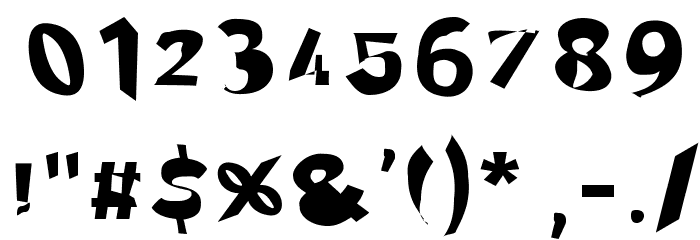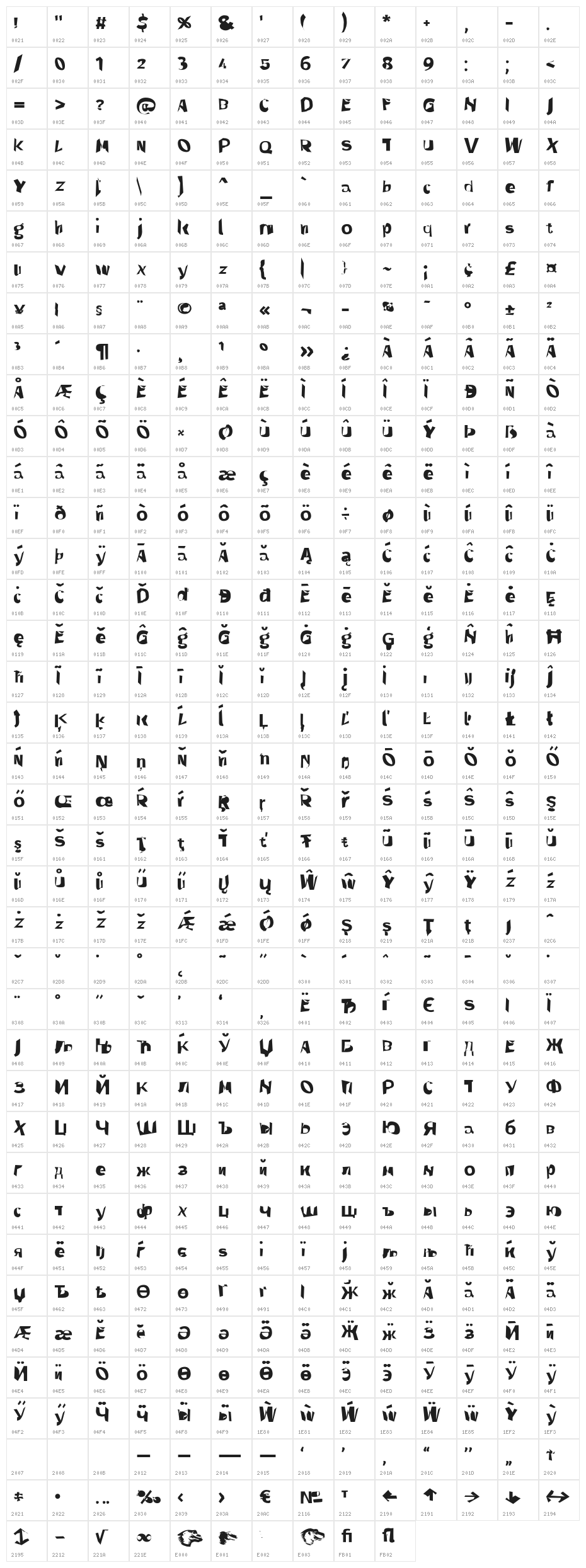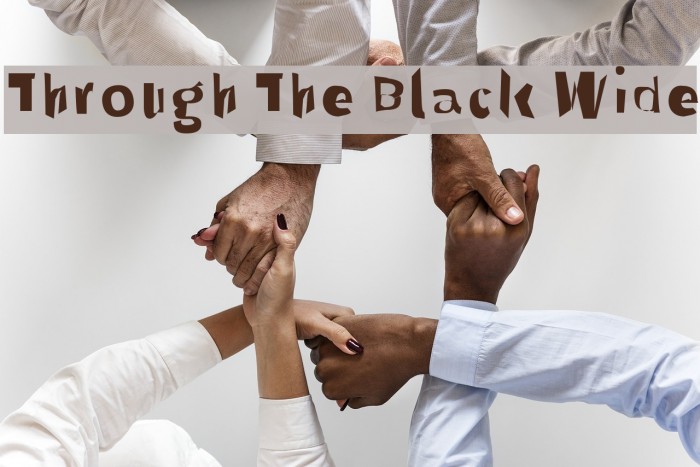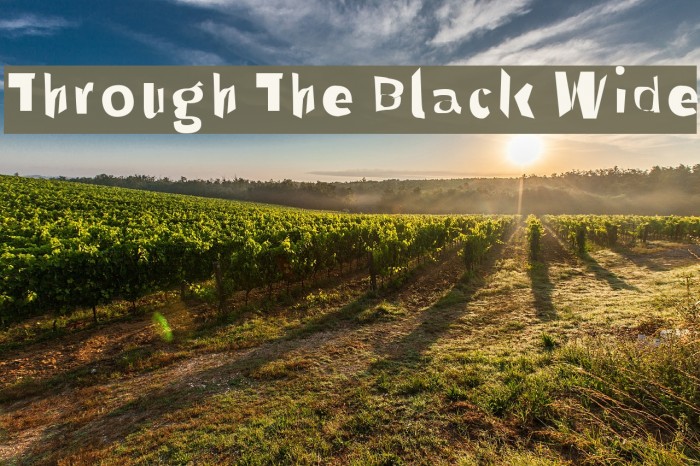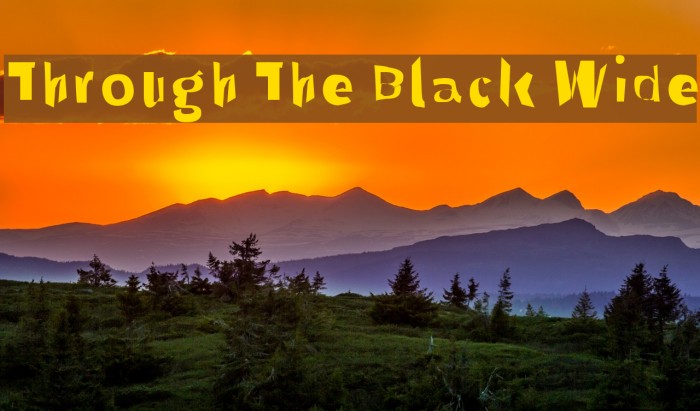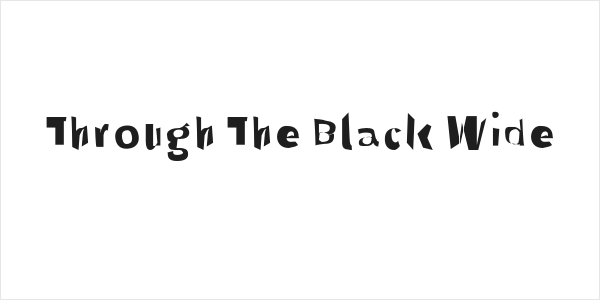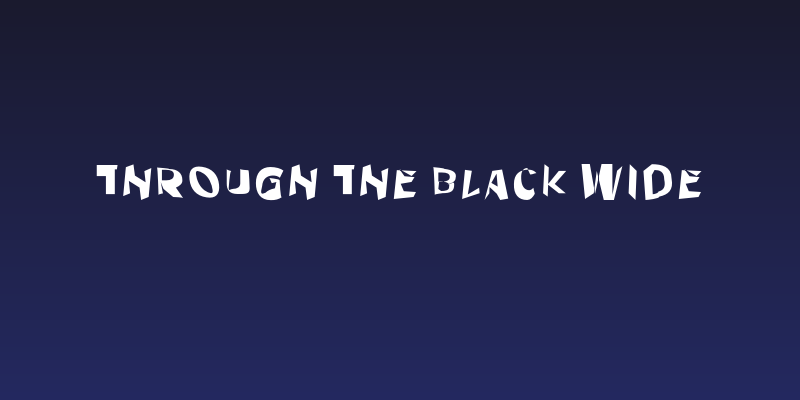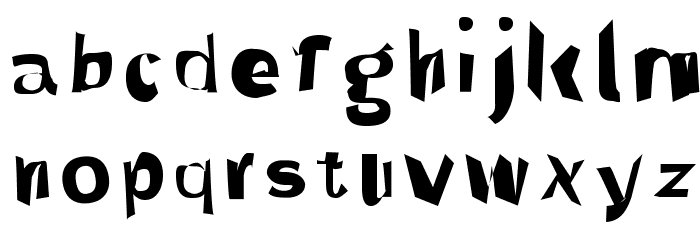
Through The Black Wide Font
Through The Black Wide Description
This font exhibits a bold and dynamic style with a distinctively irregular and jagged appearance. The characters are crafted with varying angles and thicknesses, creating a sense of movement and energy. The uppercase letters are particularly striking, with sharp edges and a slightly distorted form that adds to the font's unique character. The lowercase letters maintain this energetic style, offering a cohesive look across the alphabet. Numbers and special characters follow the same design principles, ensuring consistency throughout. This font's boldness and irregularity make it stand out, ideal for projects that require a strong visual impact.